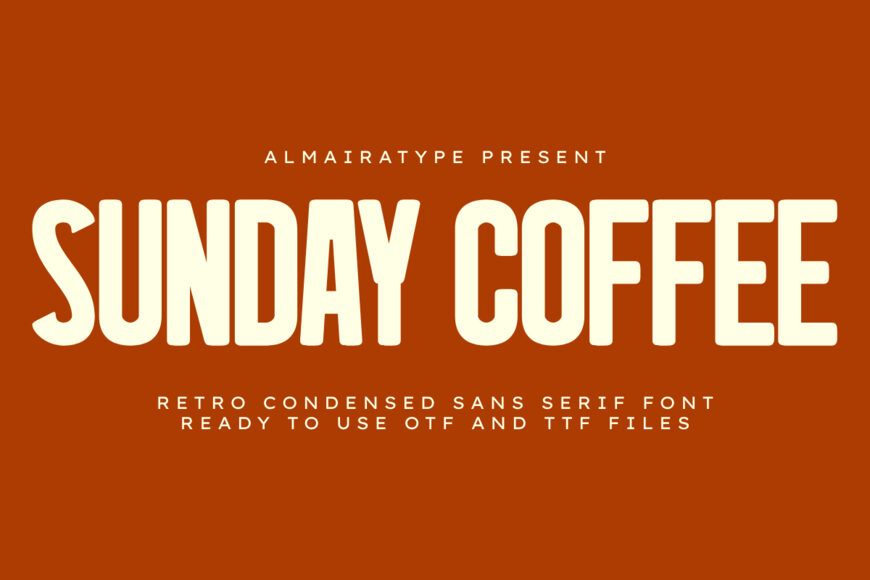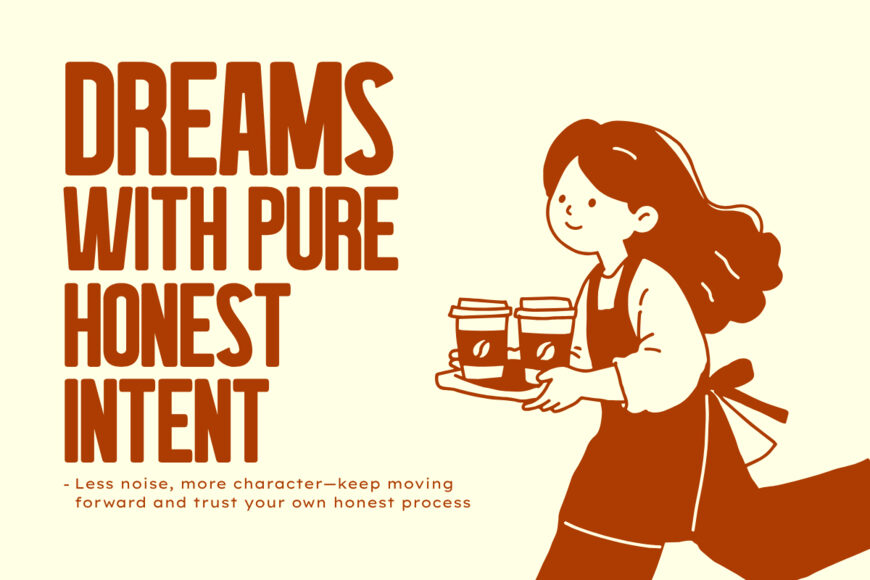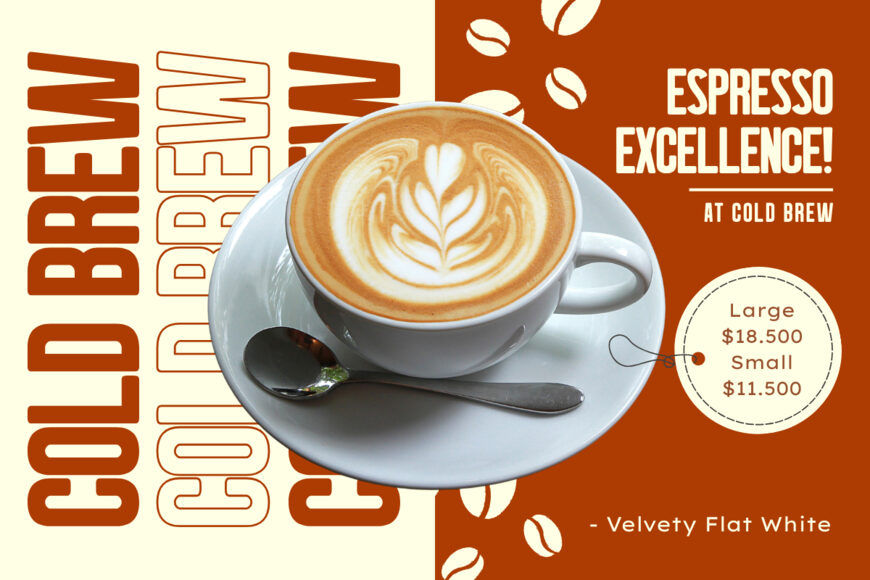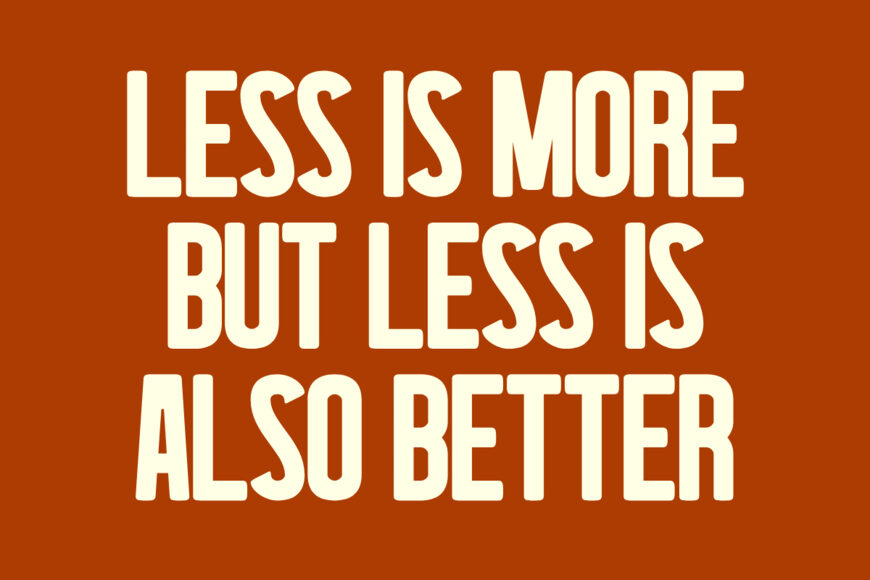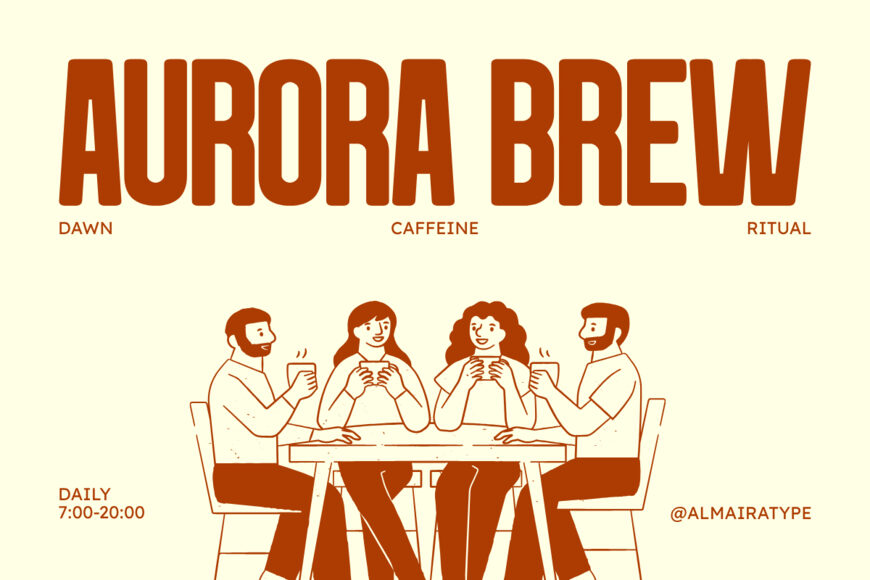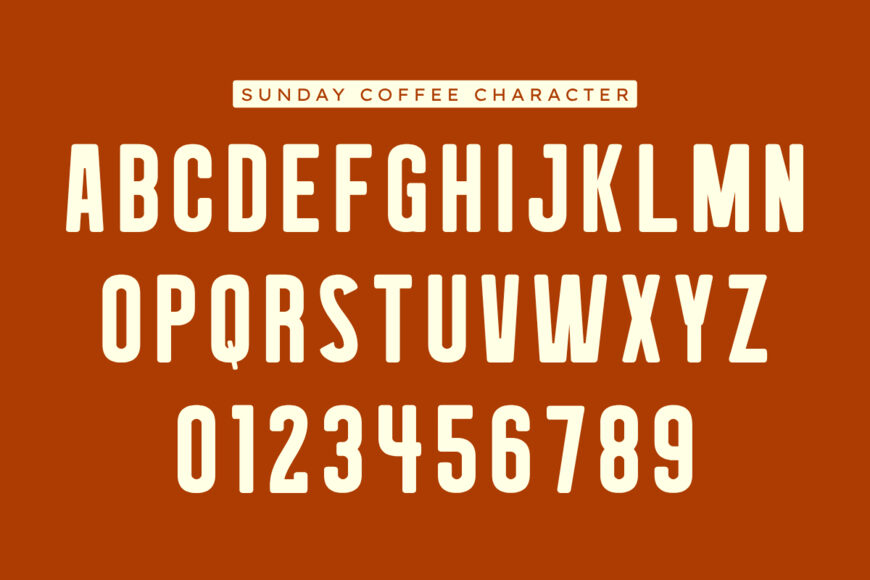
Sunday Coffee is a bold retro condensed sans serif font meticulously designed to bring a delightful vintage warmth and high-impact aesthetic to your modern creative projects. Featuring a robust, compressed structural anatomy and friendly playful contours, this typeface beautifully bridges the gap between classic 70s nostalgia and contemporary commercial design trends.